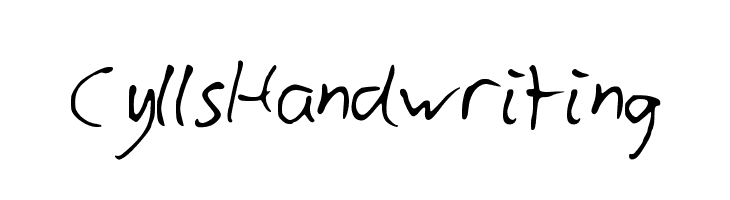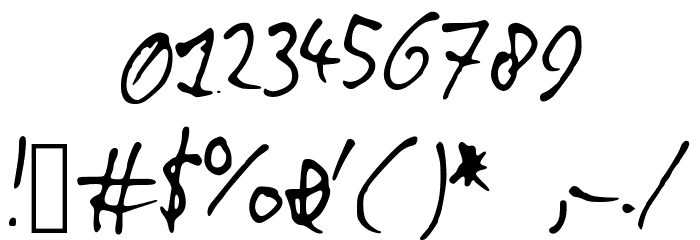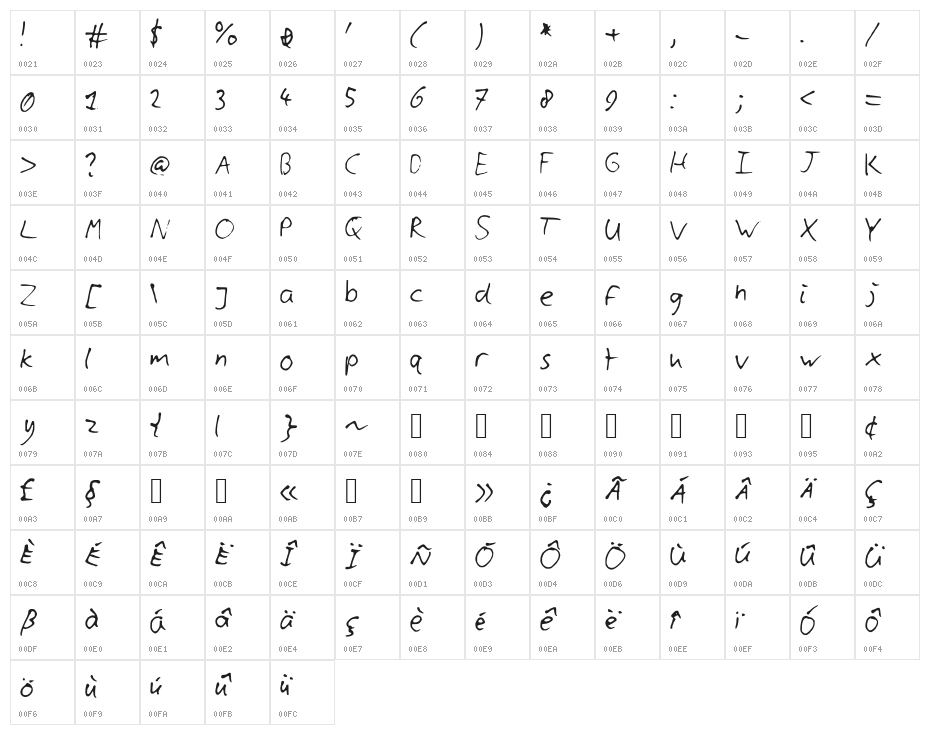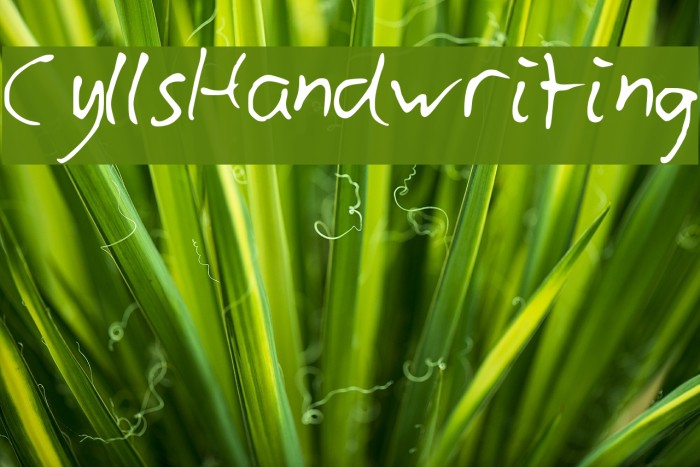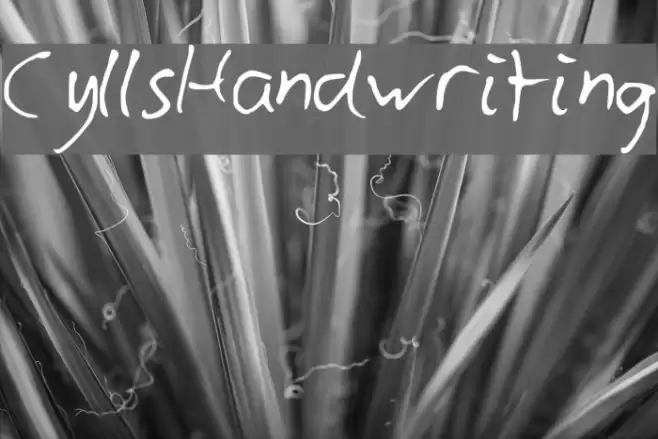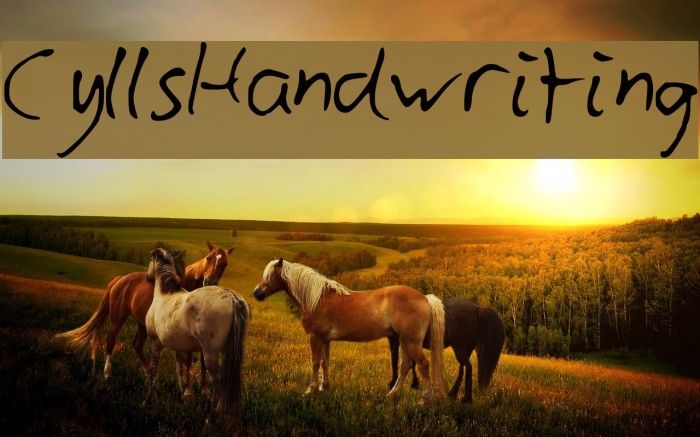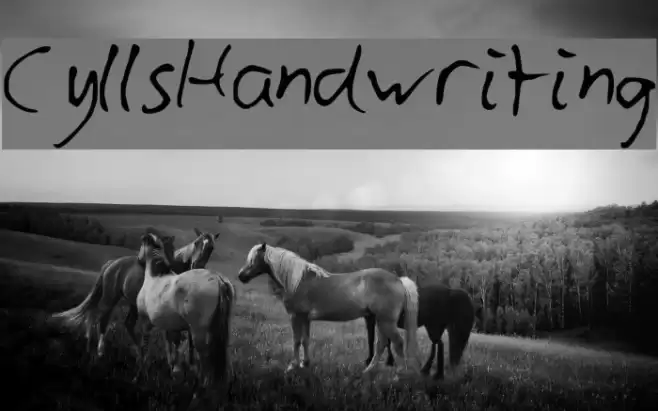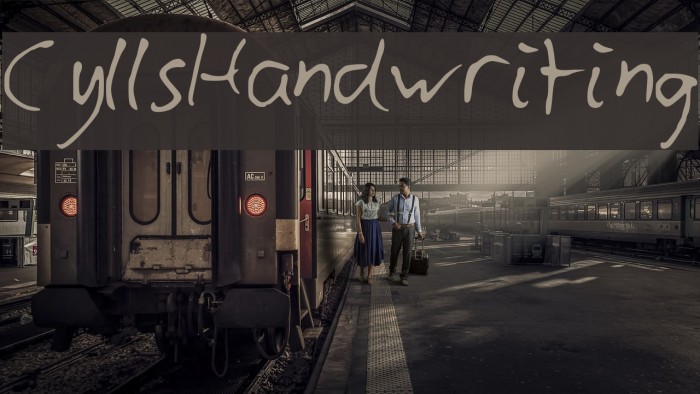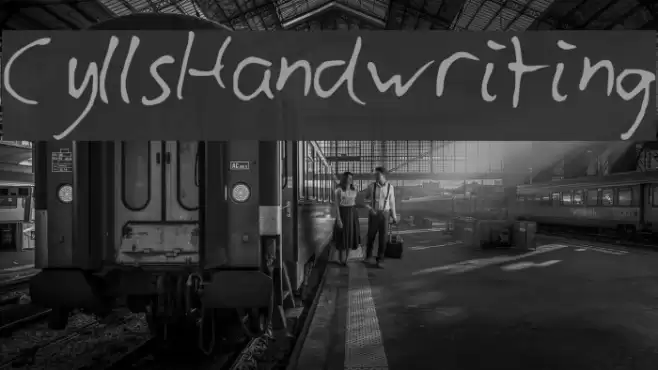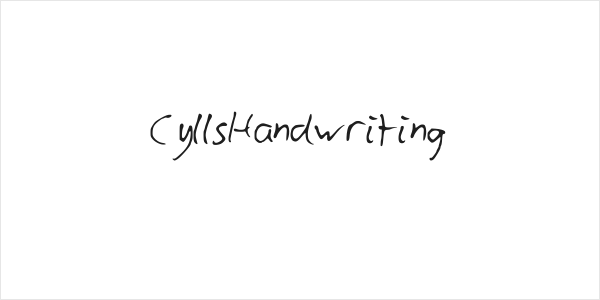
CyllsHandwriting Font
CyllsHandwriting Description
This font exudes a casual and personal touch, reminiscent of authentic handwriting. The characters are uneven and slightly irregular, giving it a natural and spontaneous feel. The strokes vary in thickness, adding to the handwritten aesthetic. The uppercase letters are bold and slightly larger than the lowercase, which are more fluid and connected. Numbers and special characters maintain the same informal style, making them blend seamlessly with the letters. This font is perfect for projects that require a personal or informal touch, such as greeting cards, personal notes, or creative projects.